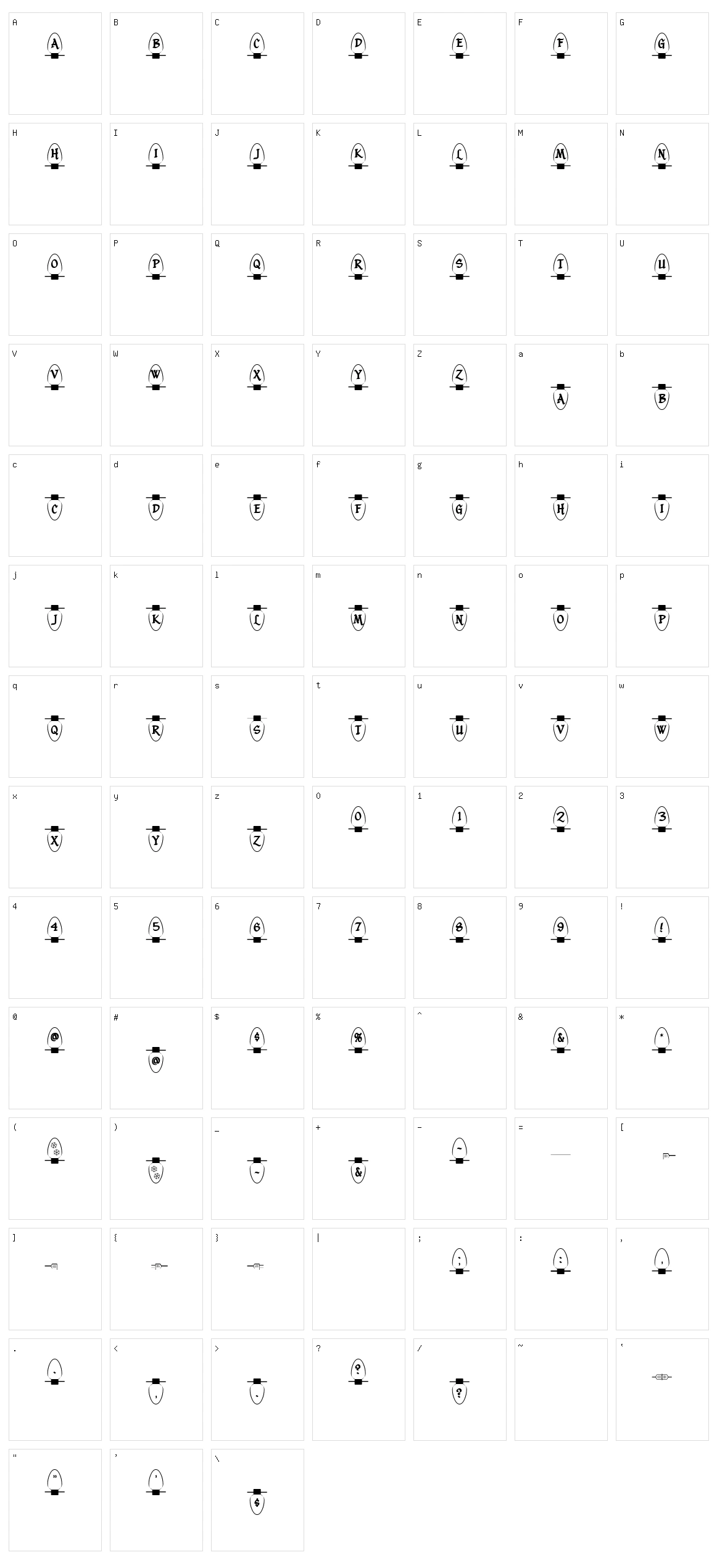
"Christmas Lights - Indoor & Outdoor" are the 48th and 49th free
fonts from Rich Gast. They are zipped together as one set and this
text file pertains to both fonts.
They were originally created on 09/21/00.
The character sets for these fonts are as follows:
Letters [Bulb Up] are Upper Case Letters
Letters [Bulb Dn] are Lower Case Letters
Numbers [Bulb Up] are 0 thru 9
Numbers [Bulb Dn] are alt0180 thru alt0189
Fill Character [Bulb Up] is alt0150
Fill Character [Bulb Dn] is alt0151
! [Bulb Up] is ! [Bulb Dn] is alt0161
@ [Bulb Up] is @ [Bulb Dn] is #
$ [Bulb Up] is $ [Bulb Dn] is \
% [Bulb Up] is % [Bulb Dn] is alt0137
& [Bulb Up] is & [Bulb Dn] is +
* [Bulb Up] is * [Bulb Dn] is alt0166
' [Bulb Up] is ' [Bulb Dn] is alt0163
Single Smart Quotes [Bulb Up] are alt0145 & alt0146
Single Smart Quotes [Bulb Dn] are alt0162 & alt0163
" [Bulb Up] is " [Bulb Dn] is alt0165
Double Smart Quotes [Bulb Up] are alt0147 & alt0148
Double Smart Quotes [Bulb Up] are alt0164 & alt0165
Snow Flakes [Bulb Up] is (
Snow Flakes [Bulb Dn] is )
, [Bulb Up] is , [Bulb Dn] is <
. [Bulb Up] is . [Bulb Dn] is >
? [Bulb Up] is ? [Bulb Dn] is /
: [Bulb Up] is , [Bulb Dn] is alt0134
; [Bulb Up] is , [Bulb Dn] is alt0135
- [Bulb Up] is - [Bulb Dn] is _
Blank Connecting Wire is =
Male Plug: Left is { Right is }
Female Plug: Left is [ Right is ]
Vertical positioning and glyph width are the same in both fonts so
that one string of characters can be made by mixing both fonts,
resulting in an unbroken string of both straight and tilted lights.
Fill characters can be typed in different colors and then the bulb
characters superimposed on top of the fill to created a colorful
holiday message.